Handwritten font is a set of Vietnameseized fonts specialized for use in graphic designs, invitation card designs, greeting cards or some software applications related to advertising, image editing with the font set. including many diverse and unique Vietnameseized fonts, handwritten fonts are quite helpful for users in their work, bringing many benefits to using fonts. Here are demo images of some beautiful handwritten fonts for you. Readers can also Download all types of Vietnamese handwritten fonts by following the link we just introduced above.
Hightlight | Handwritten font
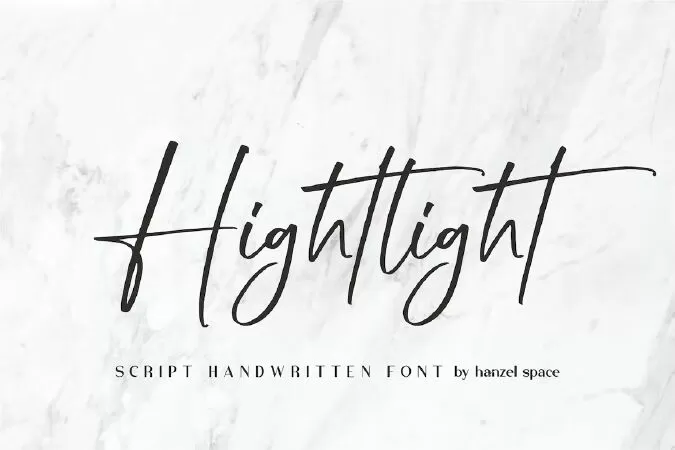
Hightlight is a handwritten font with casual chic flair. It is perfect for branding, wedding invites and cards, and maybe for red wine label.
Hightlight includes full set of gorgeous uppercase and lowercase letters, numerals, a large range of punctuation. What you get, darling?
Juvenile Handwritten Font
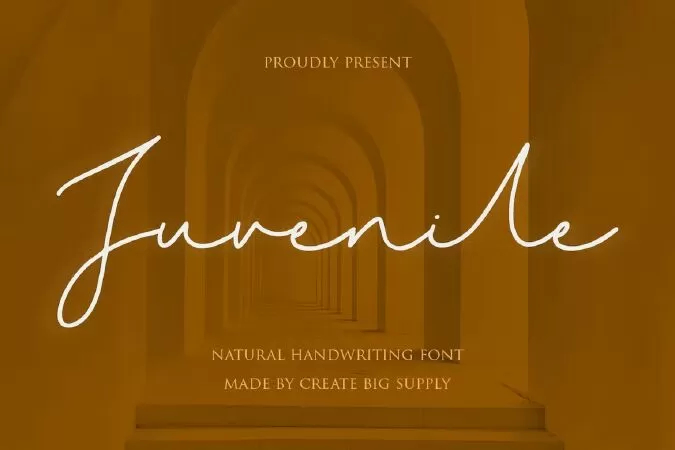
Darling Moods is a sleek and elegant script font. It has a beautiful, natural handwriting style that will leave an authentic impression on your designs!\
Kentaki Handwritten Font
Kentaki Font can be used for various media like special events, invitation, packaging, poster, wedding, movie titles, book titles, social media, logos, branding, and others.
Lovely Handwritten Font
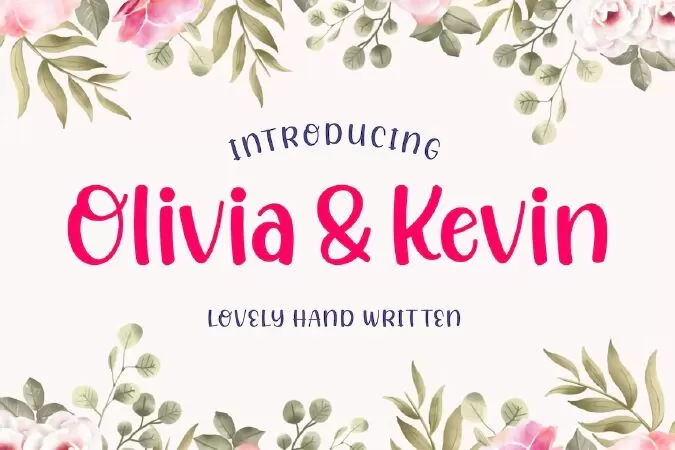
Olivia and Kevin is a fun and quirky handwritten font, that will inspire you to create something fun and memorable, especially for your best valentine. Perfect for your crafting projects, posters, magazines, food recipes, party invitations, and all other things that need this fun display type!
Aurellia Handwritten Font
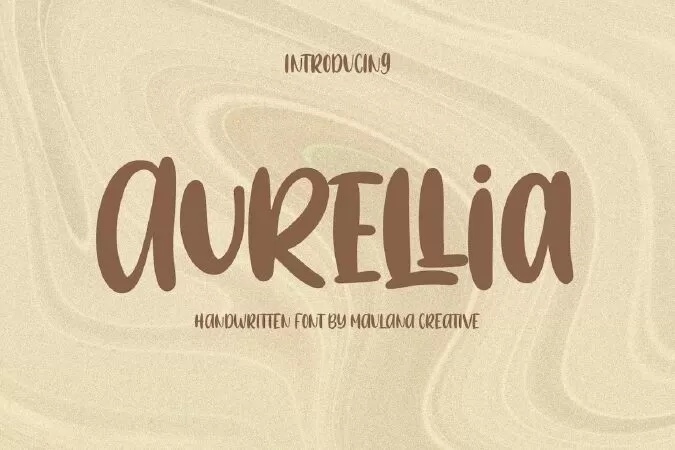
Aurellia is a simply casual Handwritten font. With bold stroke, uprights and fun character with a bit of ligatures. To give you an extra creative work. Aurellia font support multilingual more than 100+ language. This font is good for logo design, Social media, Movie Titles, Books Titles, a short text even a long text letter and good for your secondary text font with sans or serif. Make a stunning work with Aurellia font.